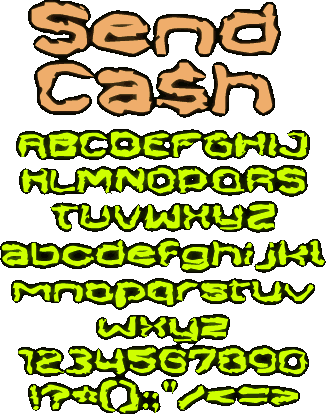
Someone pointed out that the title of this font sounds like I'm asking for money. I assure you that it's a complete coincidence. It's true. This font is based on a Axaxax.